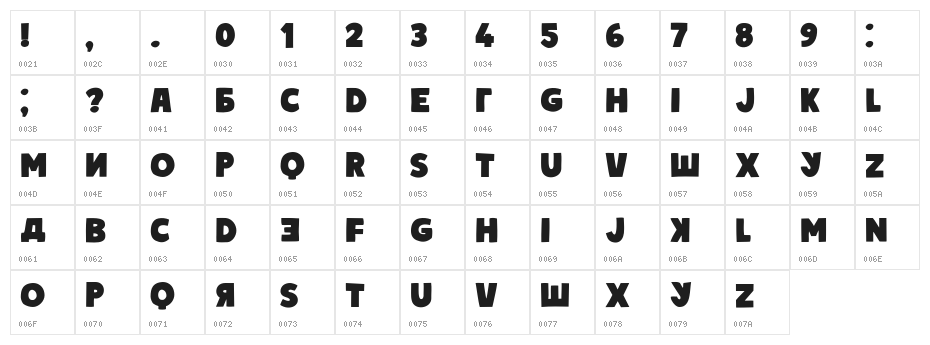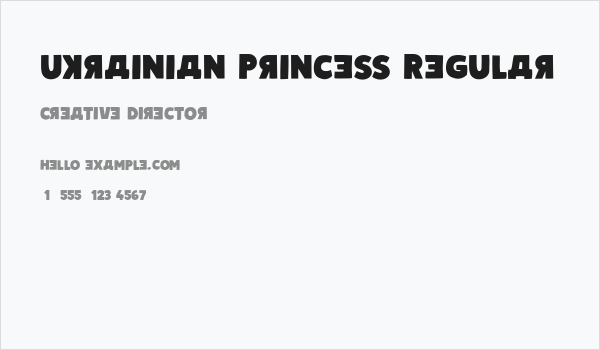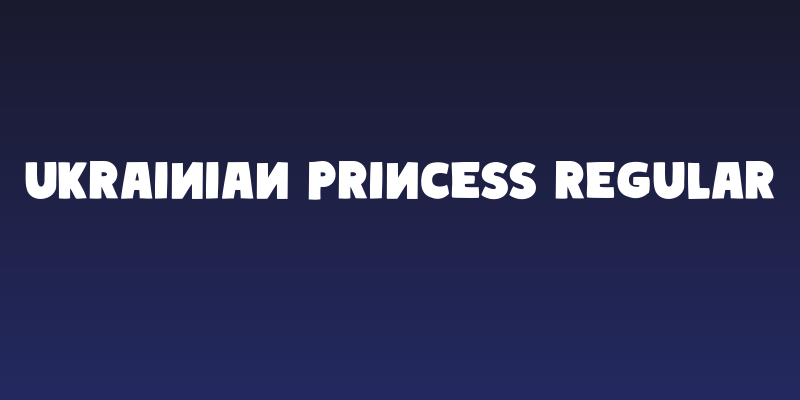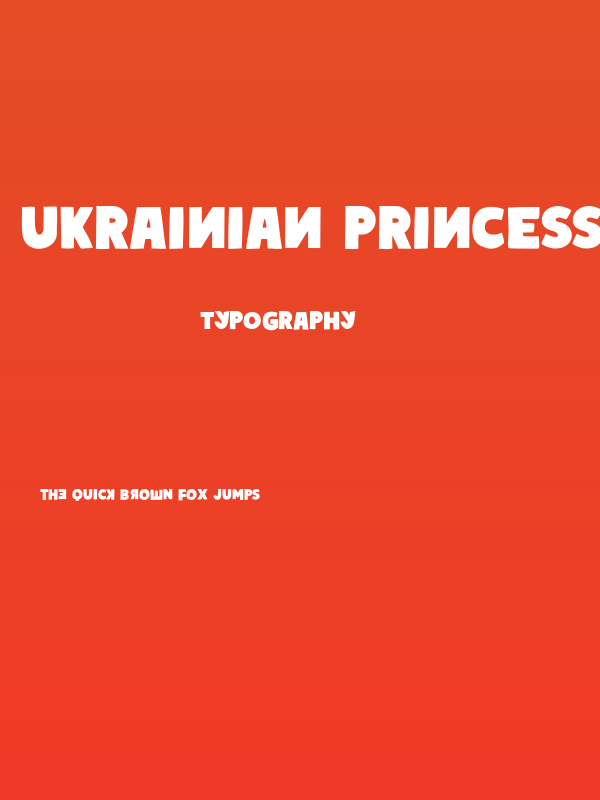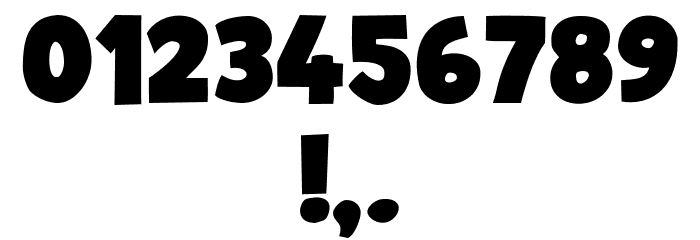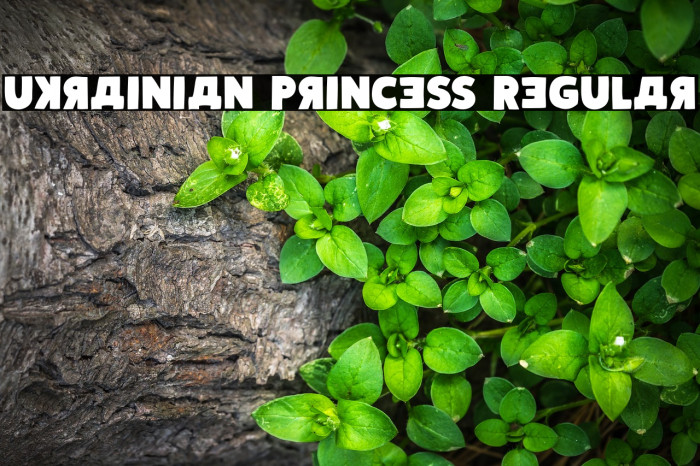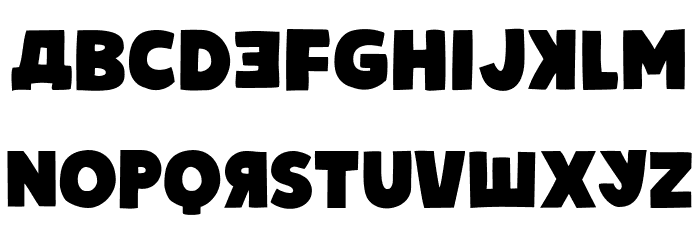
Ukrainian Princess Regular Font
Ukrainian Princess Regular Description
This font features bold, rounded characters with a playful and whimsical style. The uppercase letters are prominent and slightly exaggerated, giving a sense of fun and creativity. The numbers are equally bold, maintaining the playful aesthetic. The special characters are consistent with the overall design, adding to the font's versatility. The strokes are thick and uniform, contributing to a strong visual impact. This font is ideal for projects that require a lively and engaging appearance.
| Proposed Projects | Ideal for children's books, playful branding, posters, and creative invitations. |